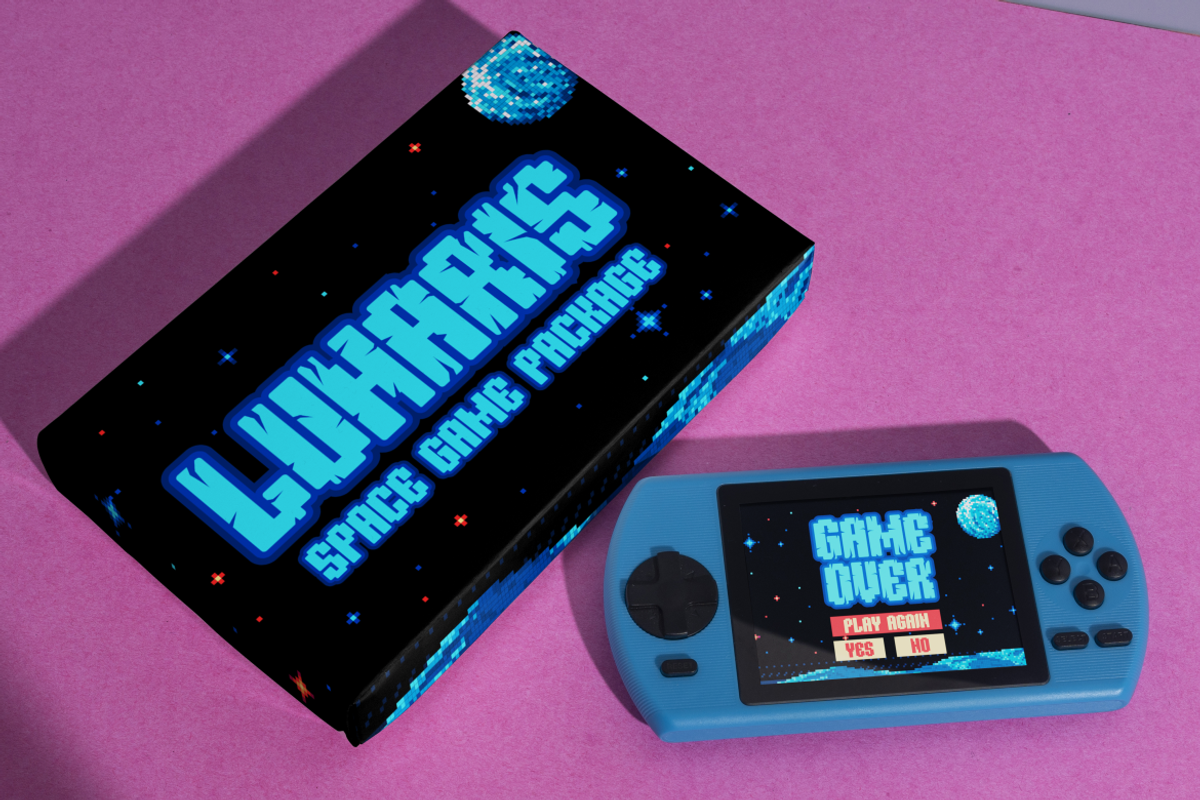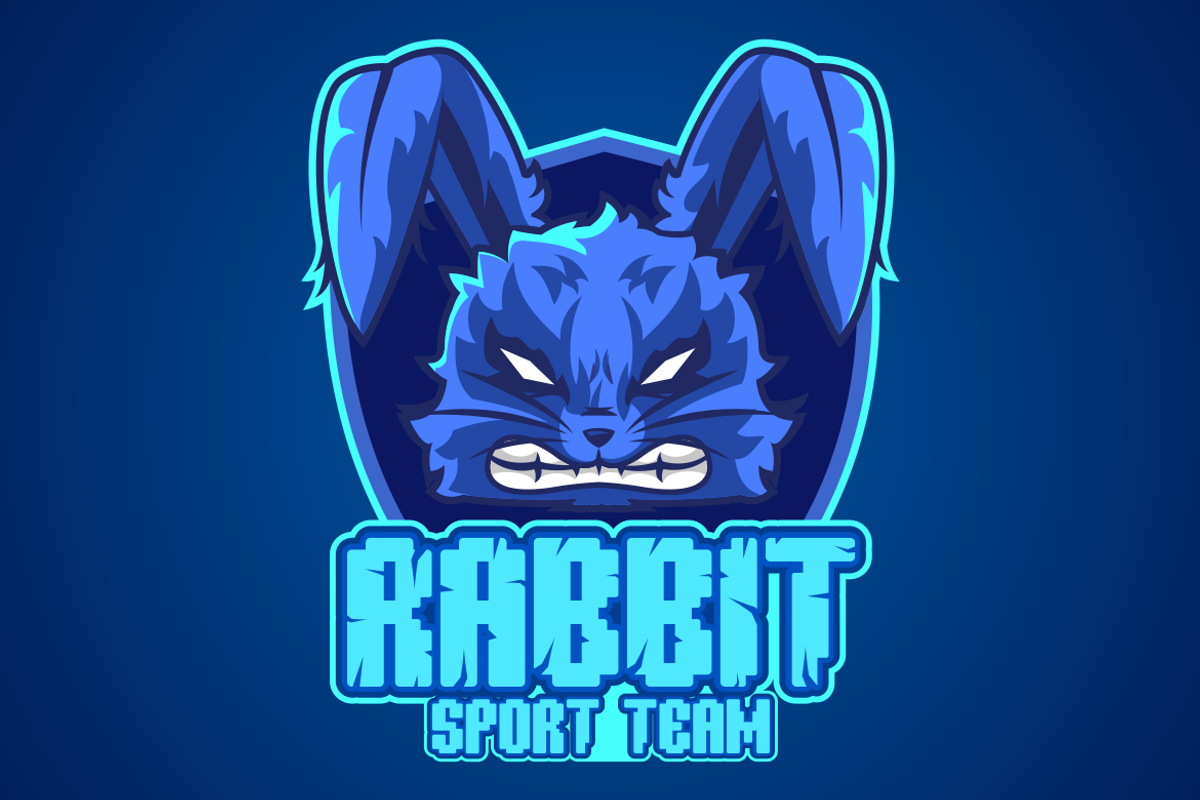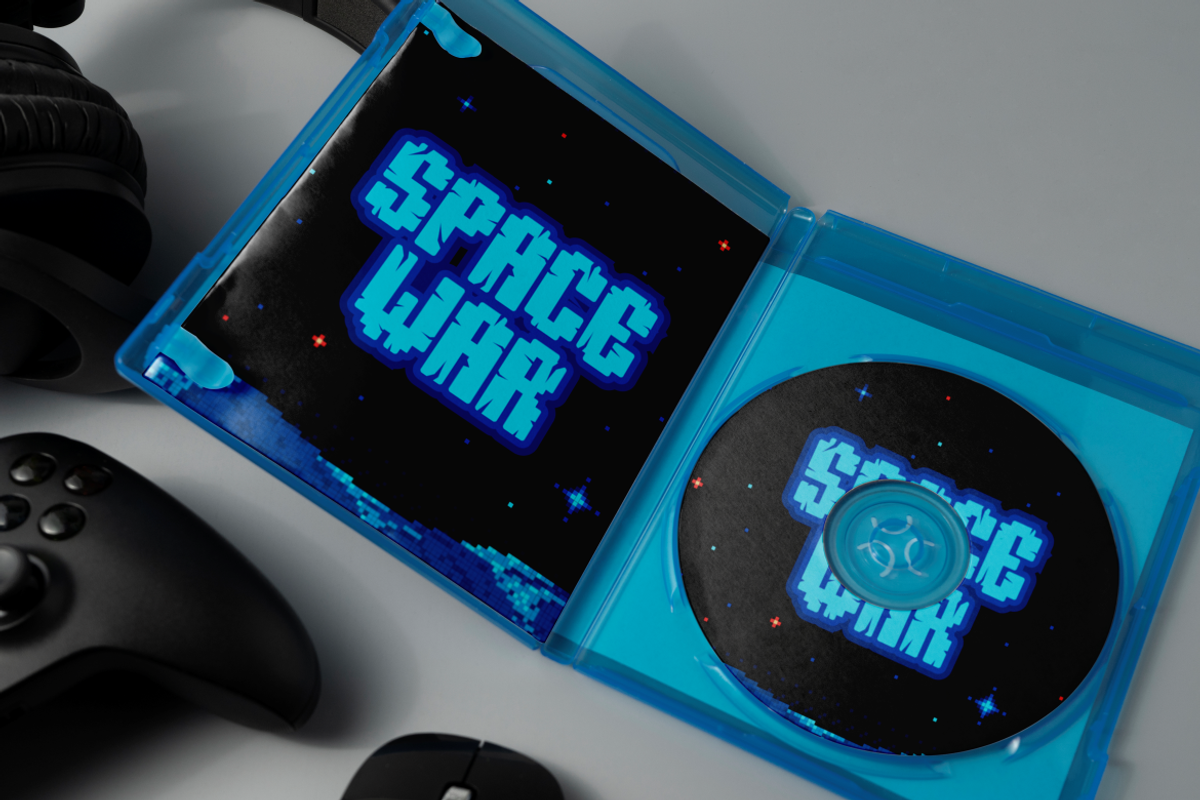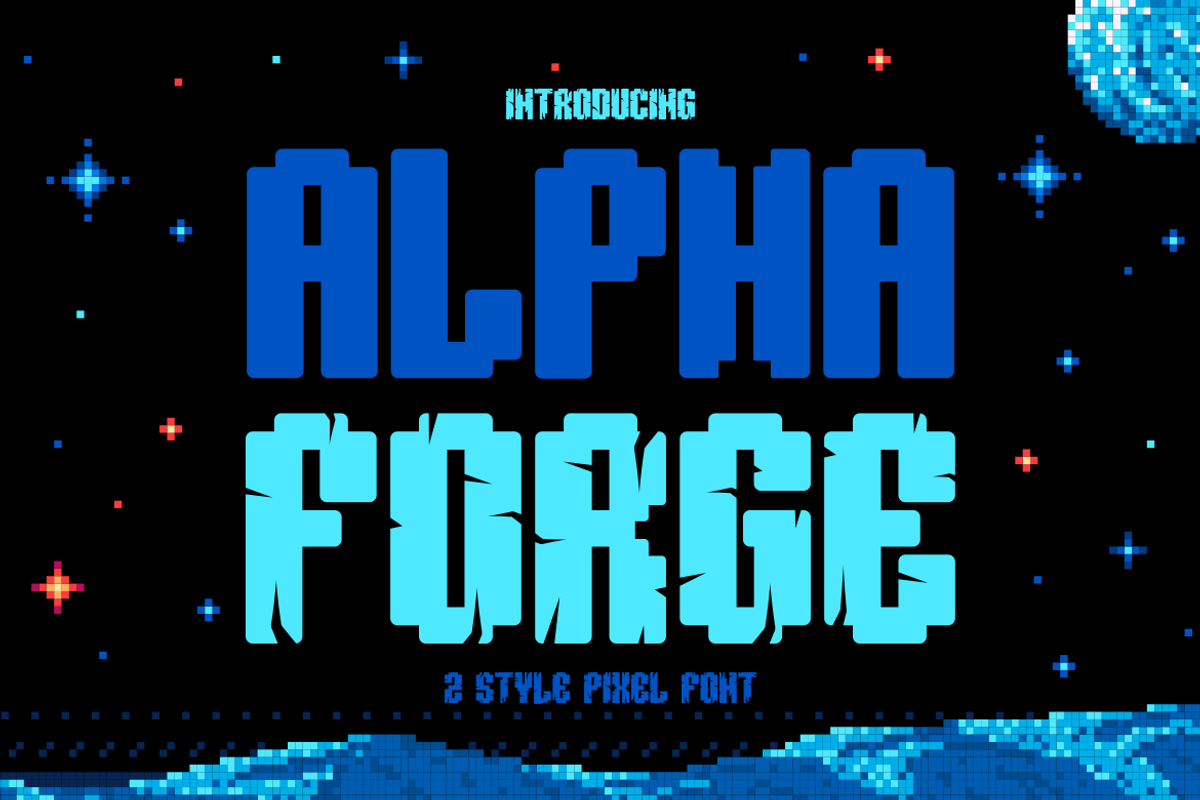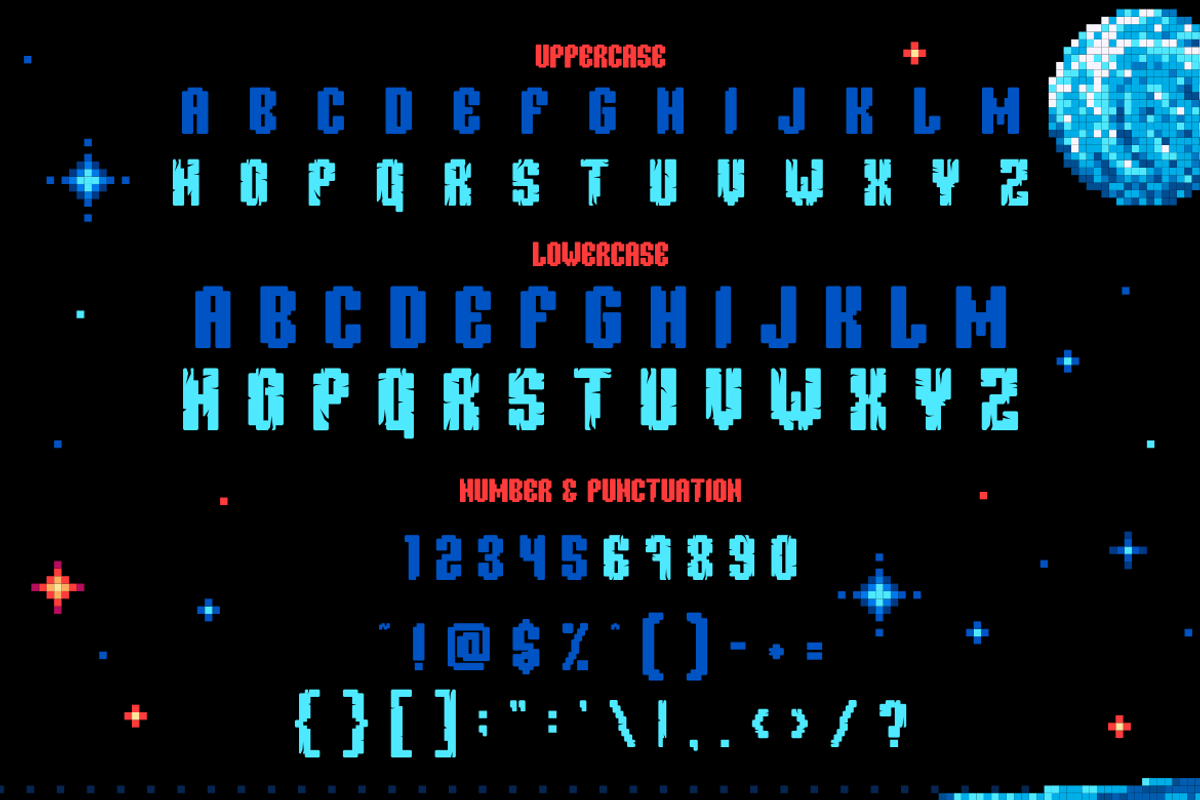
Alpha Forge Pixel Font
Step into the world of retro futurism with Alpha Forge Pixel Font, a high impact display typeface crafted for digital and sci fi inspired designs. This font features a bold pixel construction with two unique styles—clean block and fractured glitch—perfectly suited for futuristic branding, gaming interfaces, digital packaging, and bold tech logos. The uppercase letters are crafted with pixel precision, while the alternate style adds rugged edges and cyberpunk inspired cuts. Each glyph gives off the nostalgic vibe of vintage arcades, while still aligning with today’s demand for striking, digital forward visuals.
Alpha Forge works best in game covers, e sports branding, poster titles, tech merchandise, and user interface design. It’s meticulously laid out to ensure high readability at both medium and large scales, making it a great asset for both print and screen. The structured alignment, sharp corners, and digital vibe are ideal for pixel based themes, NFT graphics, gaming thumbnails, YouTube intros, and CD/DVD covers. Alpha Forge is more than a font—it's a portal to digital worlds and pixel powered creativity.